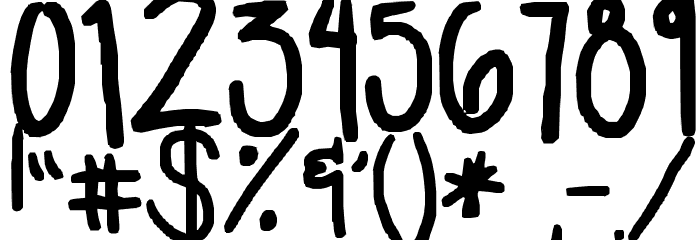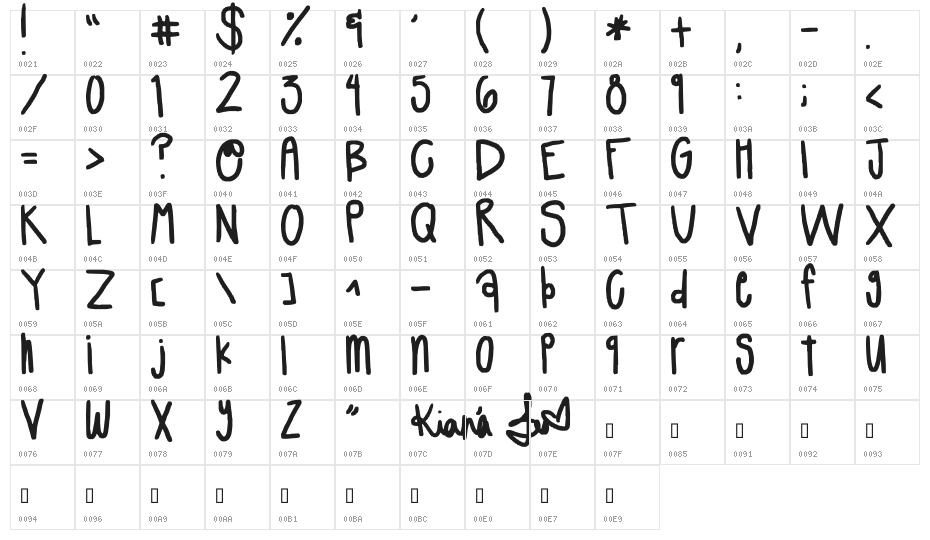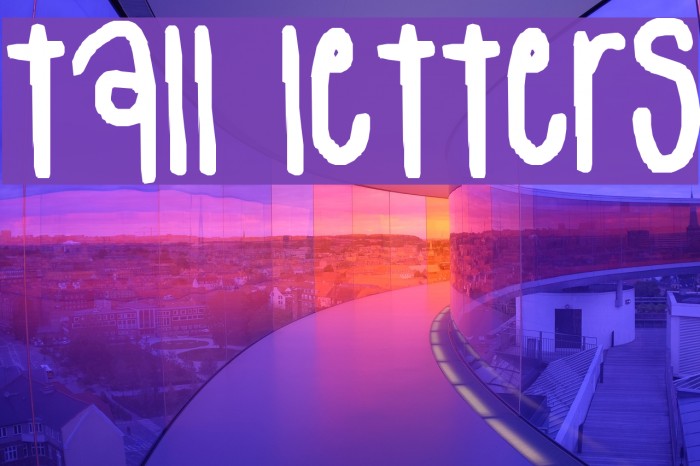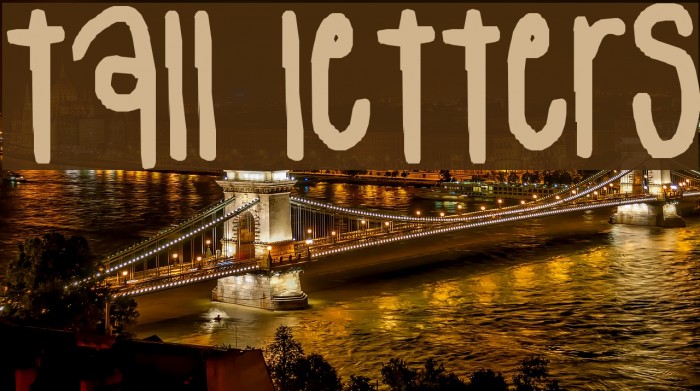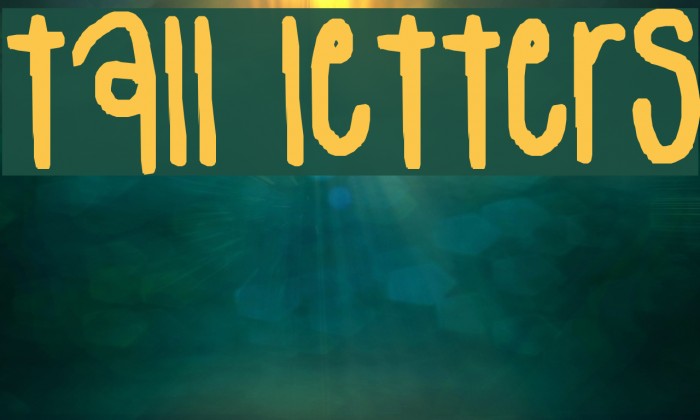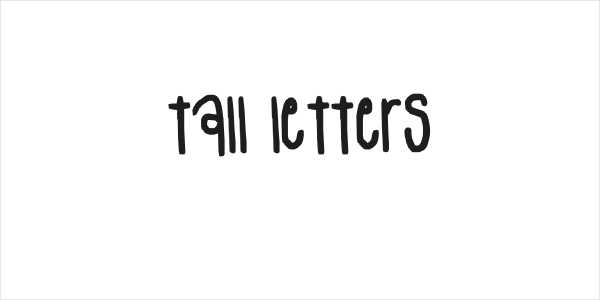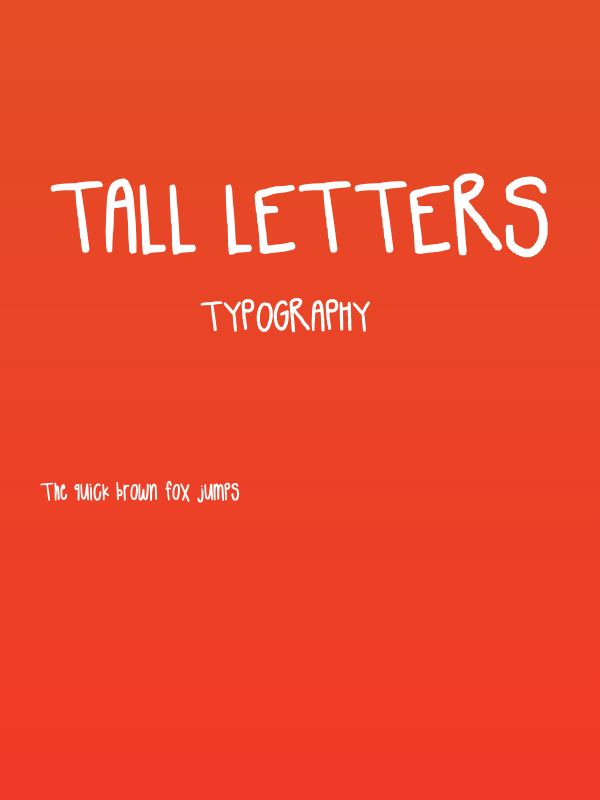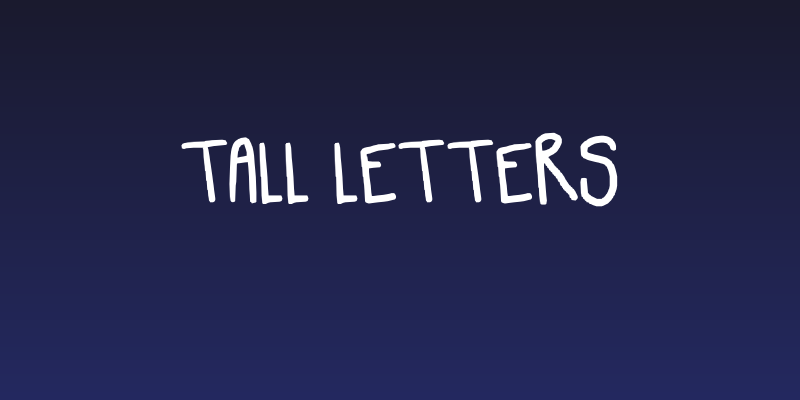
tall letters Font
tall letters Description
This font features a playful and informal style with tall, narrow letters that give it a distinctive and quirky appearance. The characters are hand-drawn, with uneven strokes and a slightly irregular baseline, adding to its casual charm. The uppercase and lowercase letters maintain a consistent height, contributing to its unique aesthetic. The numbers and special characters follow the same style, ensuring a cohesive look across all elements. This font is perfect for projects that require a fun and approachable feel, such as children's books, creative posters, or casual branding.
| Use Case | Headlines, Posters, Informal Text |
| Proposed Projects | Ideal for children's books, creative posters, casual branding, and informal invitations. |